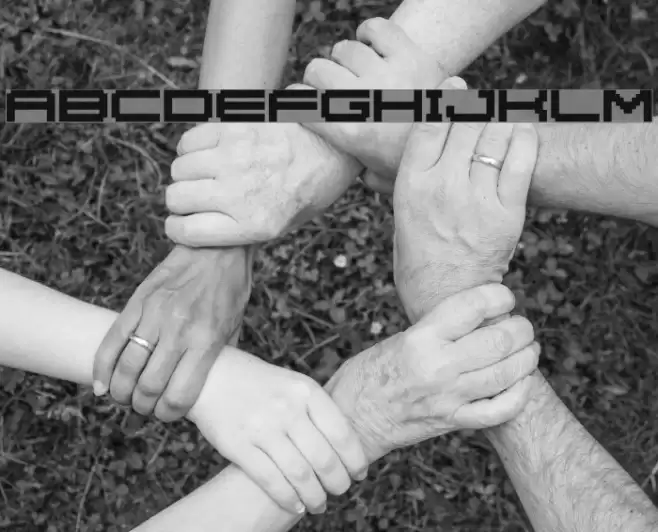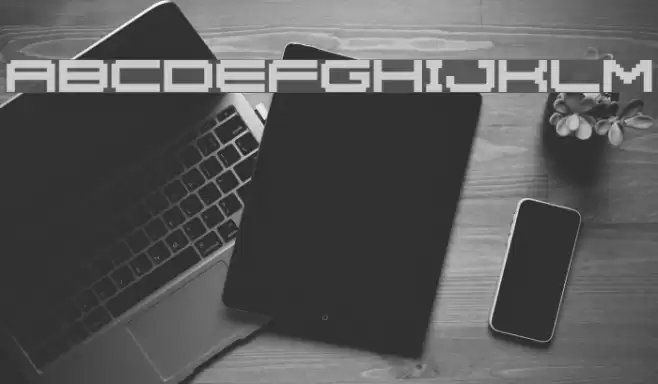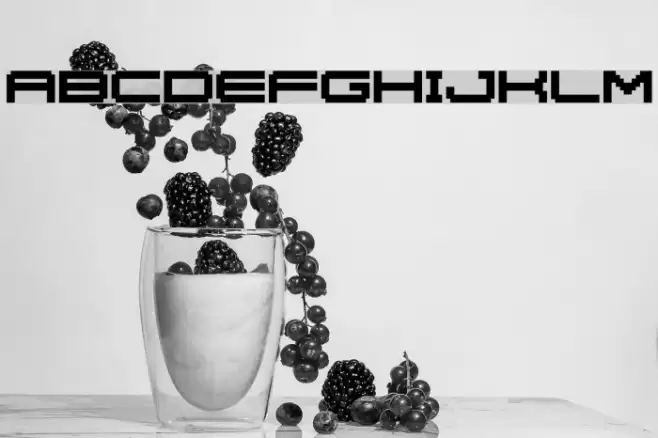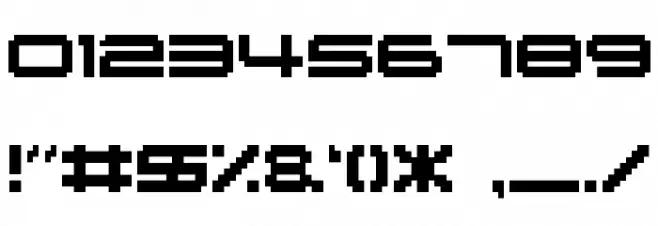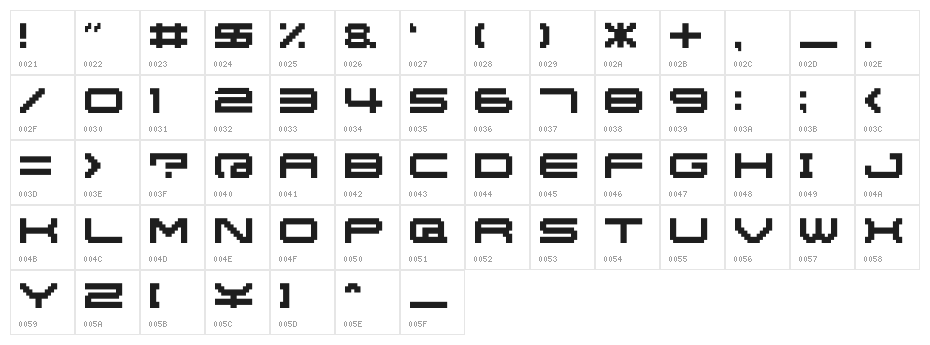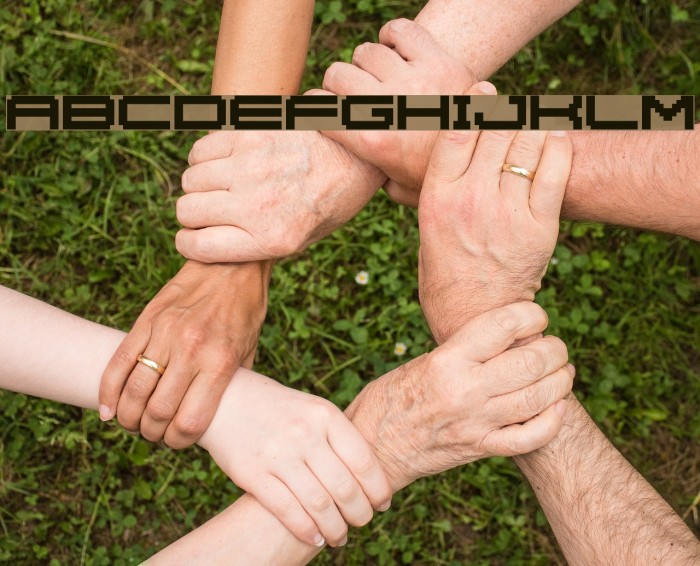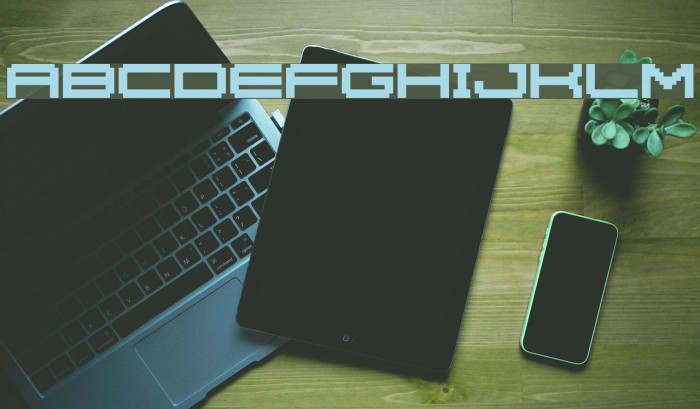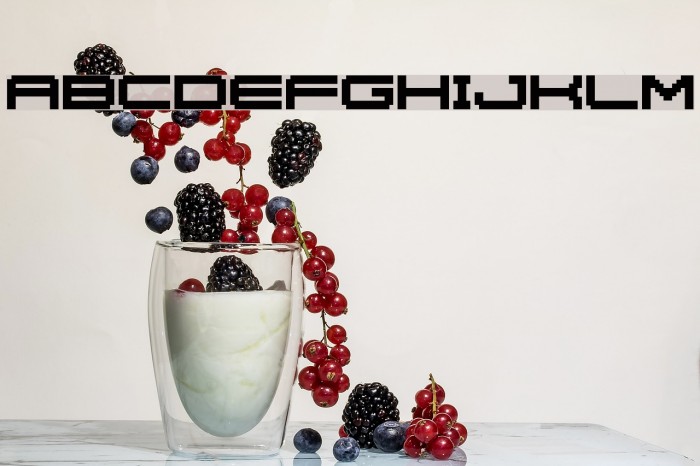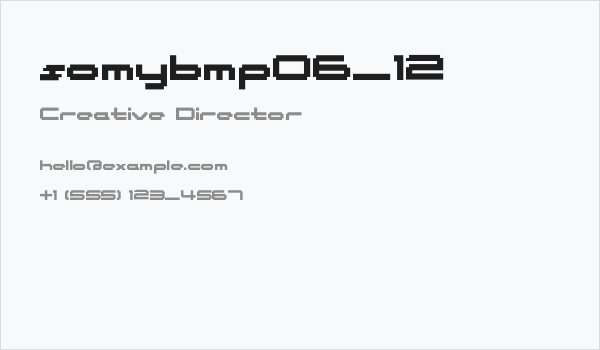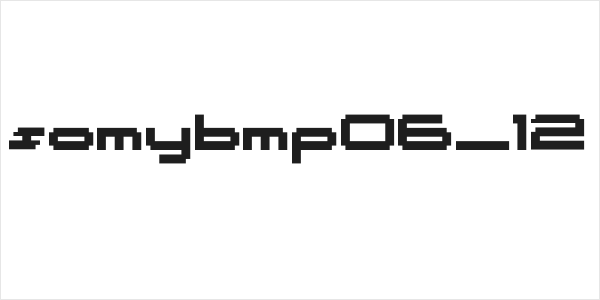
somybmp06_12 Font
somybmp06_12 Description
This font features a bold, pixelated design reminiscent of early digital displays and retro video games. The characters are constructed with a blocky, geometric style, giving them a distinct, tech-inspired appearance. The uppercase and lowercase letters maintain a consistent height, contributing to a uniform look. Numbers and special characters follow the same pixelated pattern, ensuring a cohesive visual identity across all glyphs. The font's rigid structure and sharp angles make it ideal for projects that require a digital or vintage arcade aesthetic.
A bold, pixelated font with a retro digital style from Pixel fonts.
- Proposed Projects: Ideal for video game design, tech-themed posters, retro digital displays, and branding for technology companies.
- Overall Style: Retro, Digital
- Use Case: Headlines, Logos, Digital displays